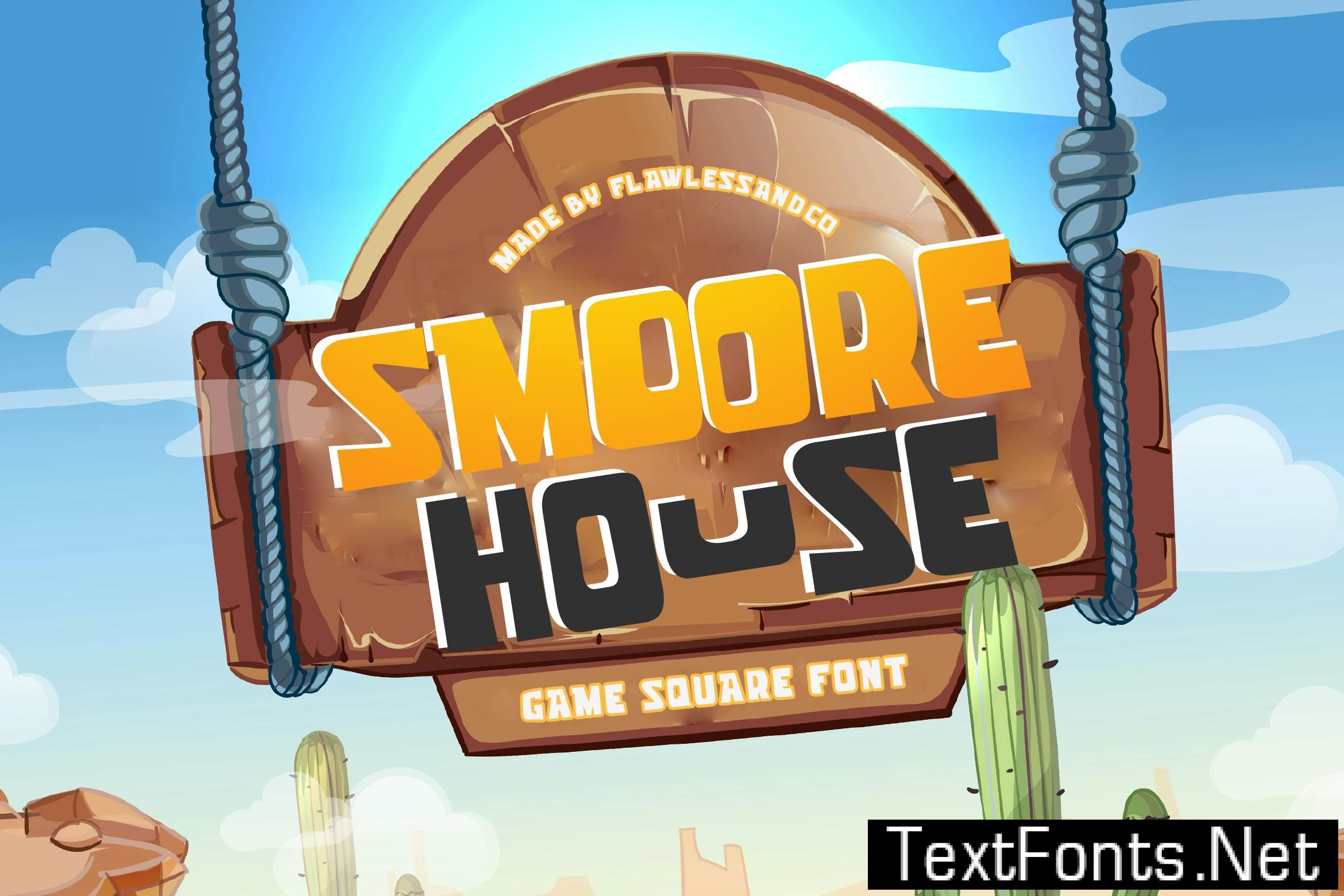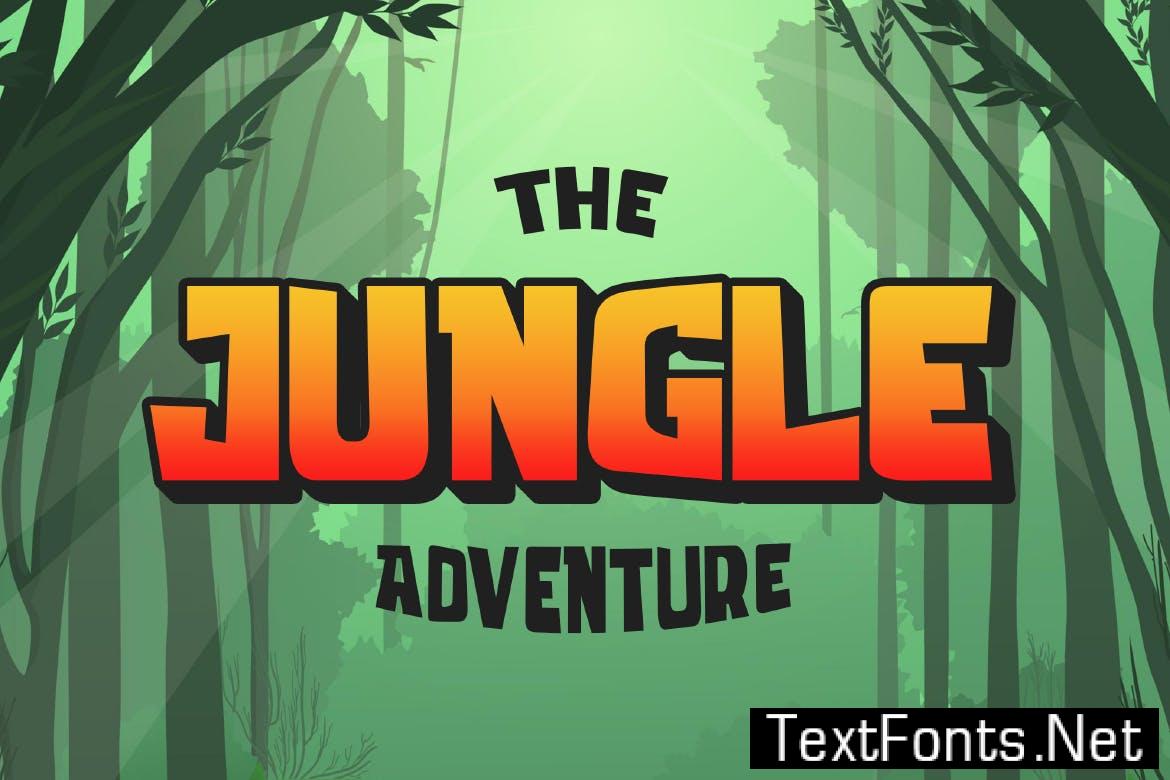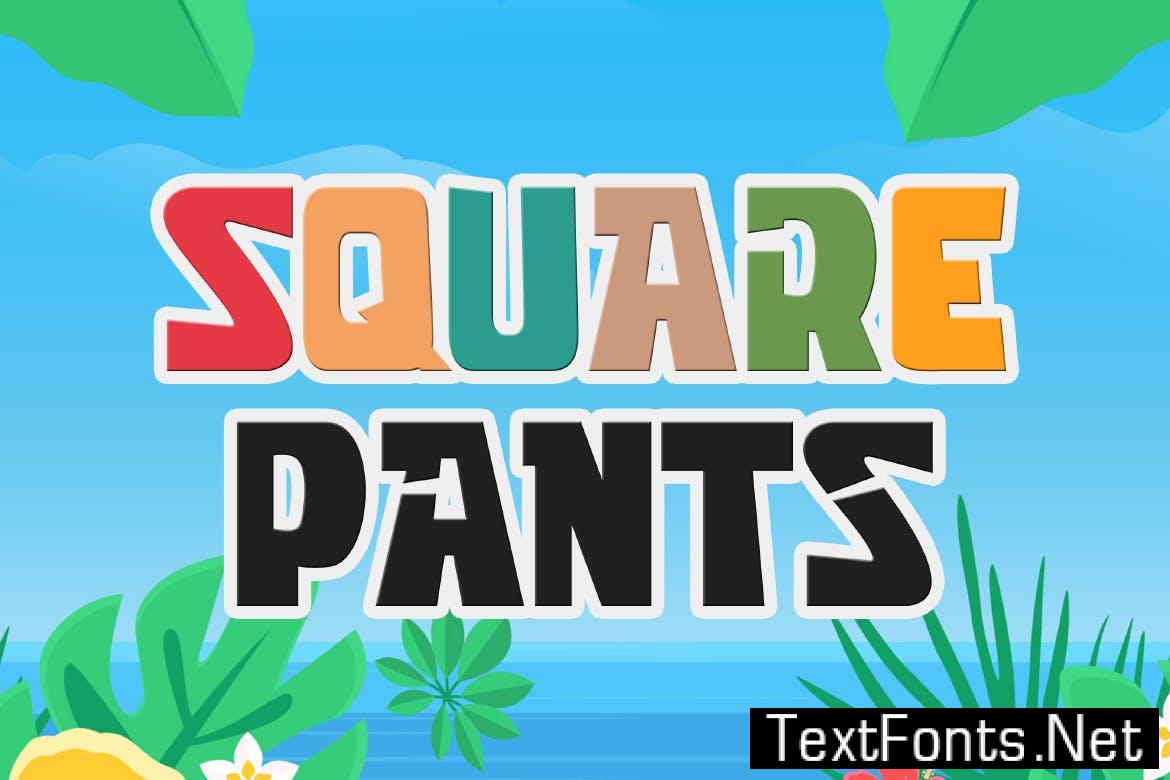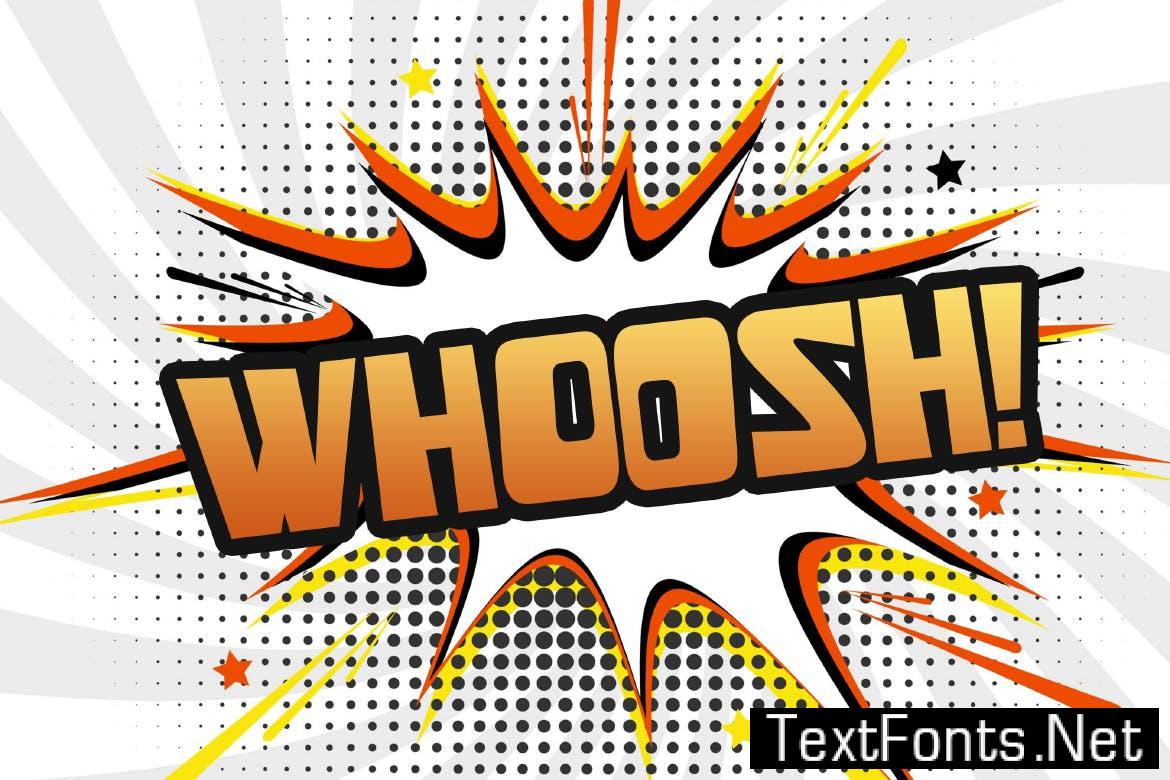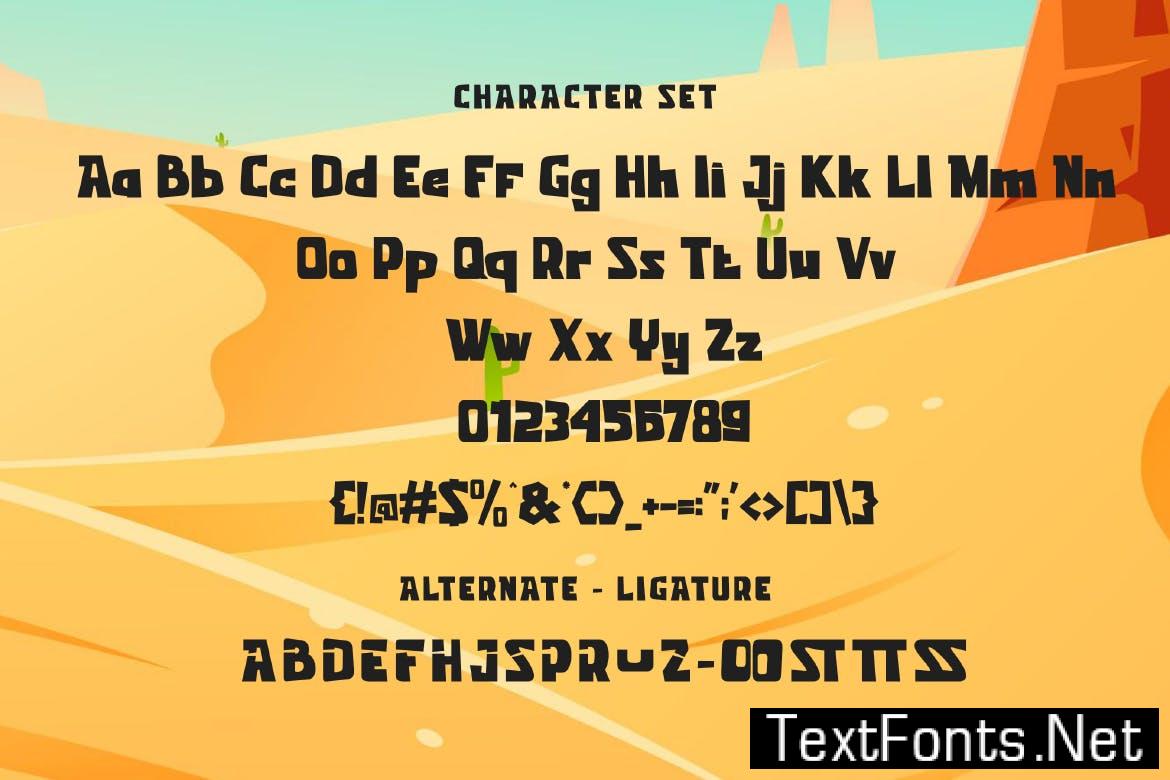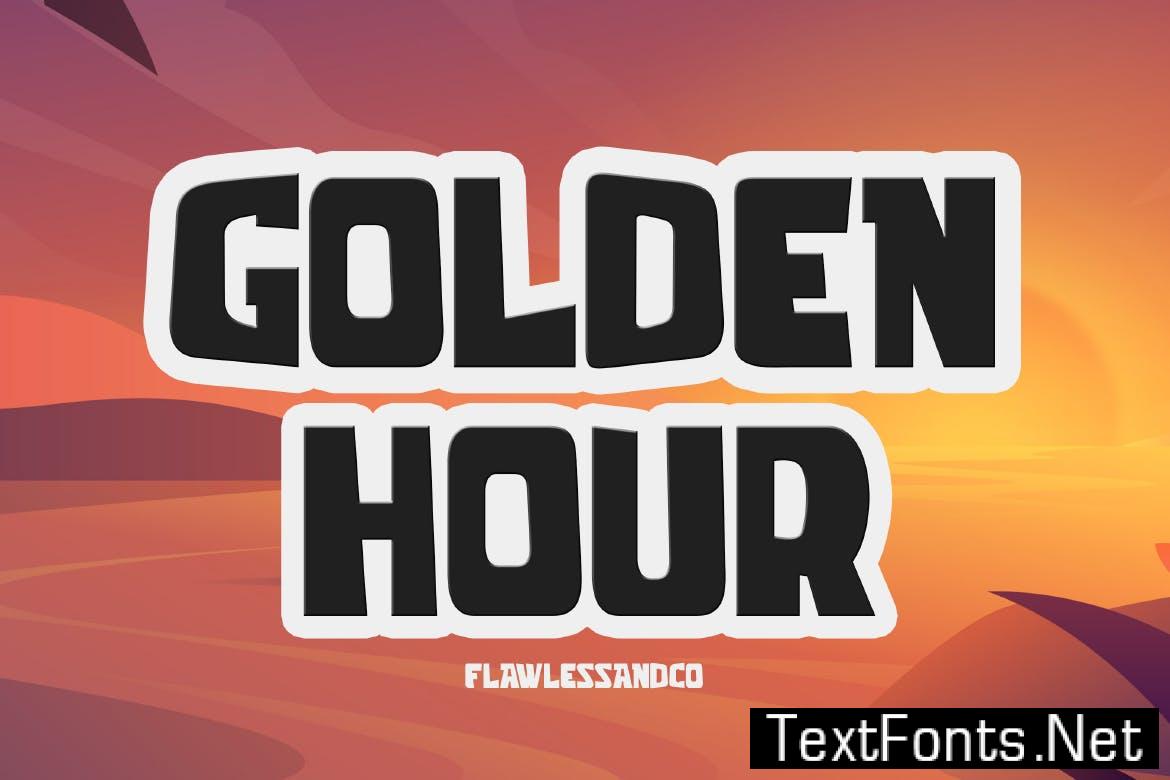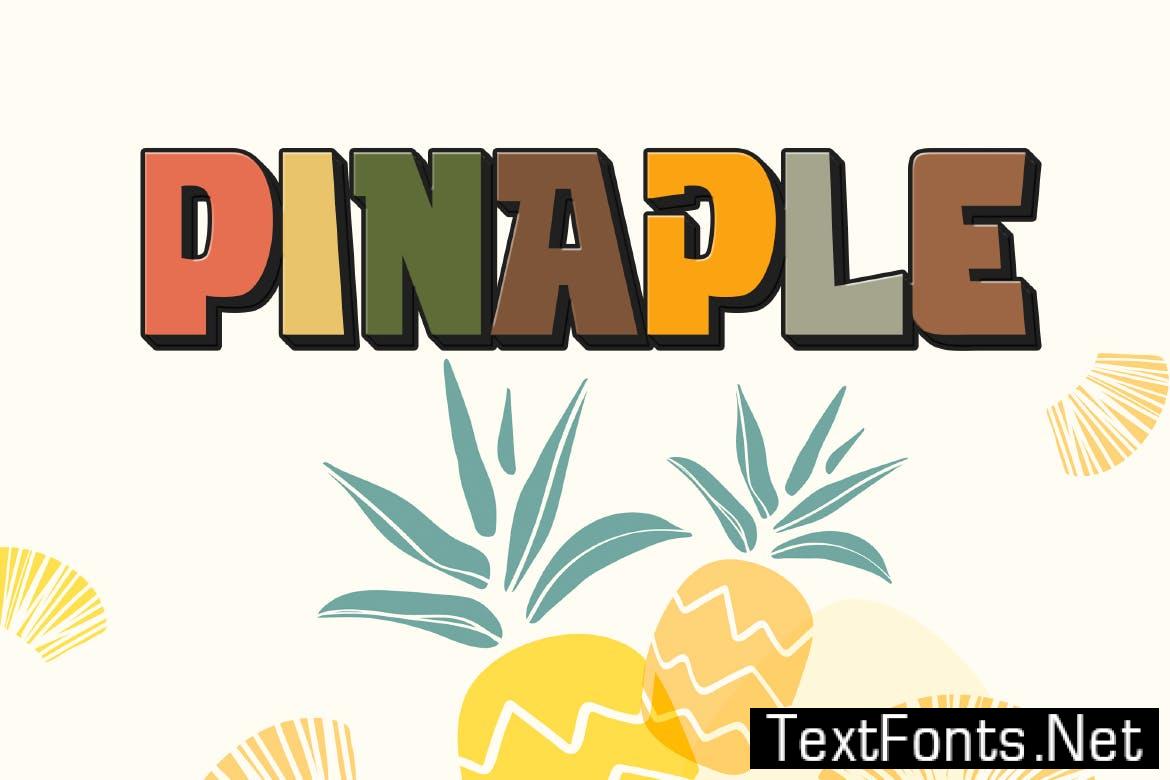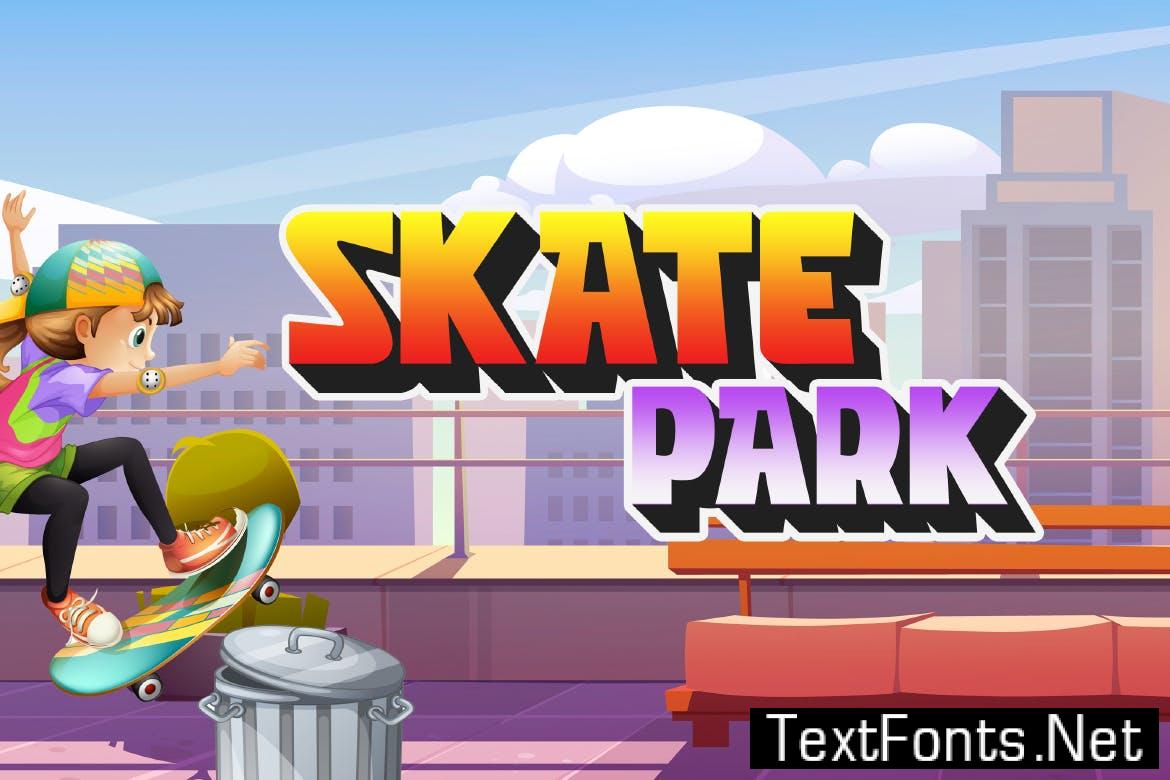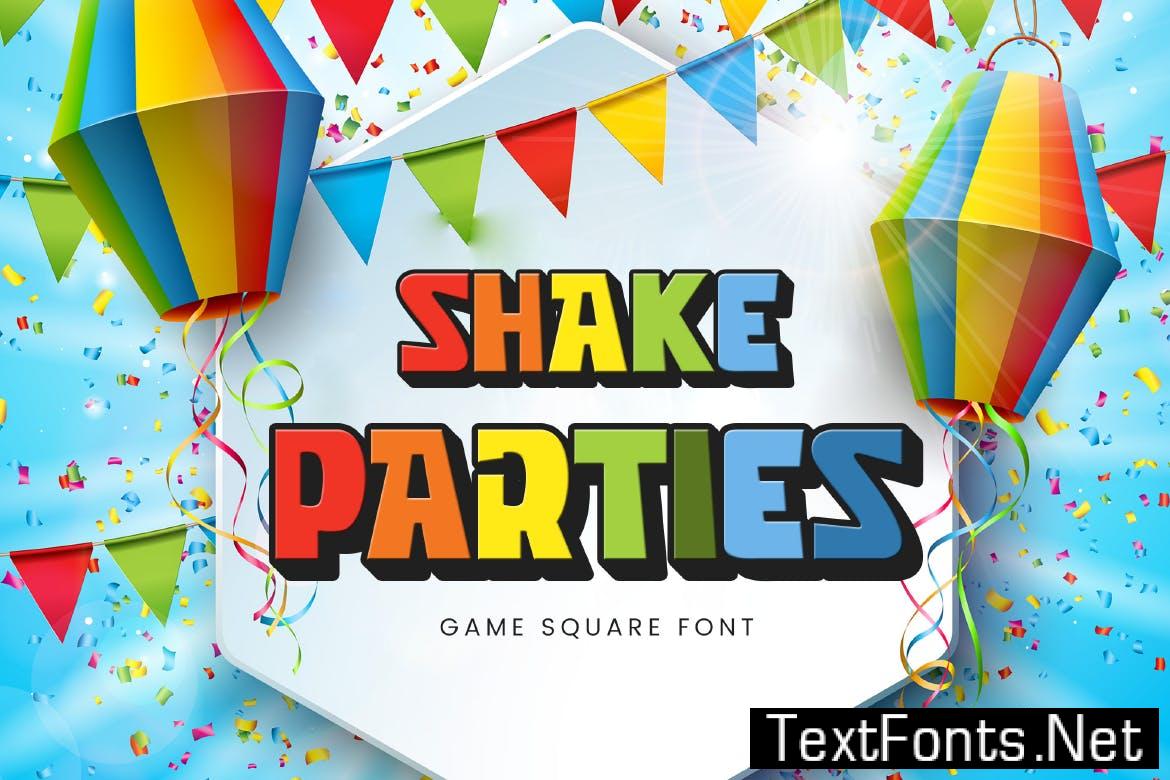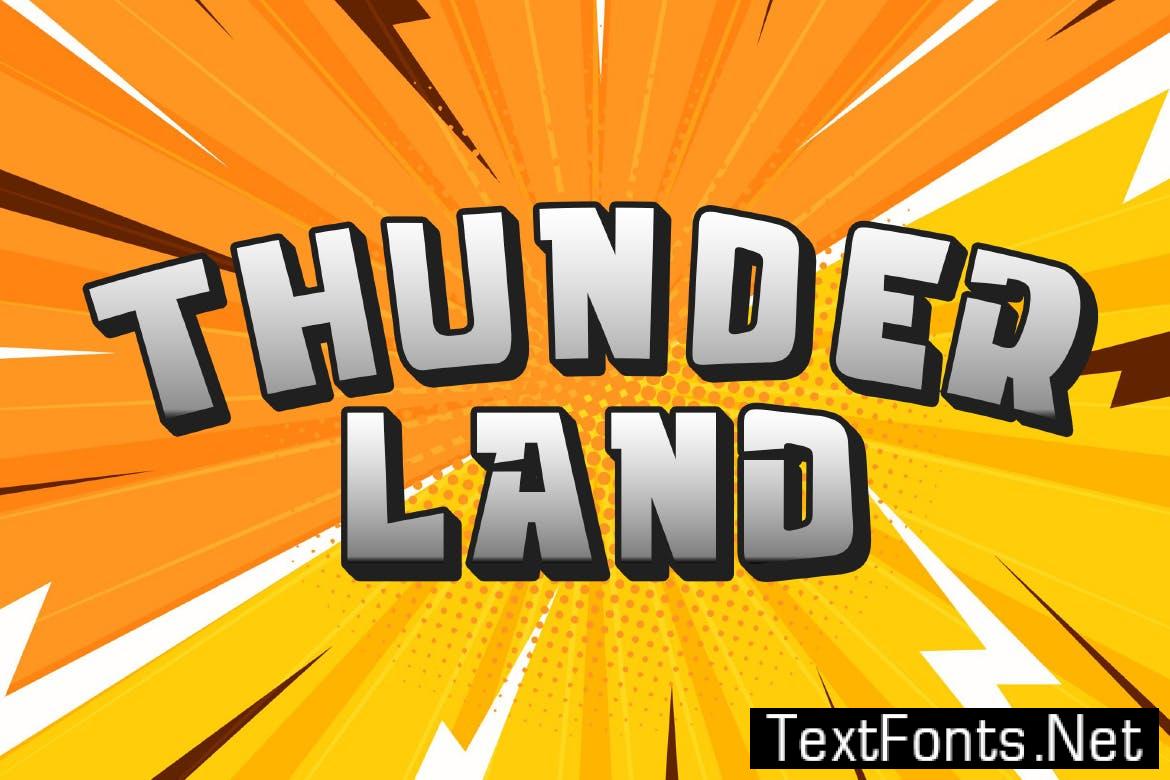
Introducing “Smoore House” a game square font. Enter the pixelated realm of gaming with “Smoore House,” a bold and dynamic square font designed to elevate your gaming experience to new heights. With its sharp edges and futuristic vibe, Smoore House brings a touch of excitement and energy to every gaming interface.
Multilingual
Uppercase alphabet A-Z
Lowercase alphabet a-z
Numbers 0-9
Some punctuation